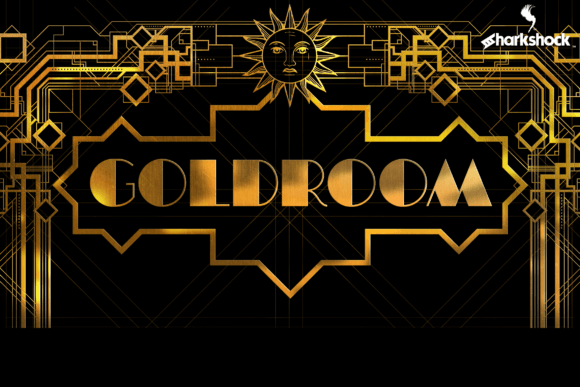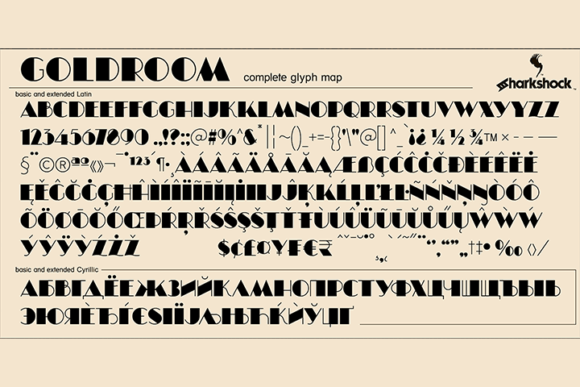
Get Ready to Shine with the Goldroom Font
You’ve spent hours pouring over design boards, brainstorming ideas, and tweaking layouts. The moment of truth arrives, and you’re tasked with creating a show-stopping poster for the latest retro-themed movie. You know exactly what you need: a font that screams old-school glamour, sophistication, and flair. That’s where the Goldroom Font comes in – a stunning all-caps display font that’s ready to transport your design to the golden age of cinema.
This art deco-inspired masterpiece is designed to evoke the magic of a bygone era, with a focus on symmetry, contrast, and clean lines. With its two alternate versions, the Goldroom Font is the perfect tool for designers looking to add some visual interest to their work. Whether you’re creating a retro movie poster or a logo, this versatile font is sure to shine.
Goldroom Font Key Features
- Font Family: Goldroom is a sans-serif font family, designed for modern and clean typography.
- Unique Characteristics: Goldroom features a distinctive geometric shape and a subtle rounded edge, giving it a friendly and approachable feel.
Goldroom Font Review
As a designer, I was excited to try out the Goldroom font. In my opinion, this font has a lot going for it.
- The Goldroom font has a unique, elegant aesthetic that makes it perfect for luxury or high-end brands.
- The font is highly customizable, with a wide range of weights and styles to choose from.
- The font is highly legible, making it a great choice for body text or large blocks of text.
Limitsations ⚠️
- The font may be too ornate for some brands, and can come across as overly fancy or pretentious.
- The font may not be suitable for digital applications, as the ornate details can become pixelated and difficult to read.
Overall, I would say that the Goldroom font is a solid choice for designers who are looking to create a luxurious or high-end aesthetic. While it may not be suitable for every brand or application, it’s a great option for those who want to add a touch of elegance to their design.
Tips for Getting the Most Out of Goldroom Font
To get the most out of the Goldroom font, try the following:
- Use it for headings and titles to add a touch of elegance and sophistication.
- Combine it with other fonts to create a unique and eye-catching typography style.
- Experiment with different font sizes and styles to create visual interest and hierarchy.
The Goldroom font is commonly used for:
- Luxury brand designs and packaging.